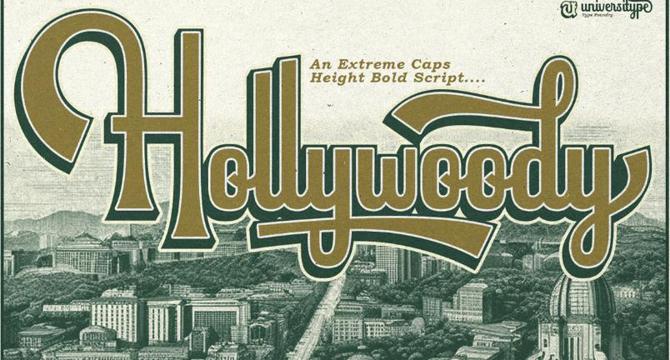
Movie fonts play a crucial role in setting the tone and atmosphere of films by invoking specific emotions and associations in viewers.
Font choices in movies are deeply rooted in psychological perceptions, with serif fonts symbolizing tradition, sans-serif fonts representing modernity, and distressing fonts signaling danger.
Various movie fonts like Cinema Sunday, Cinematic Logo Luxury, and Film Display Font cater to different design needs, from elegant branding to dramatic movie titles.
Fonts like Goride Sans and Bold Sans Serif Film Font are designed for digital media, ensuring clear readability across different platforms.
Adventure Display Font is ideal for outdoor-themed projects, while Cinematic Luxury Font, Extreme Caps Height Script, and Gaming Font Style cater to luxury, nostalgia, and gaming design needs, respectively.
Different fonts like Movie Sans Font, Shadow Noir, and Bhentay Typeface offer simplicity, sophistication, and a touch of mystery suitable for various design applications.
Fonts such as Death Star, Slab Serif Western, and Movie Display Font bring unique styles for retro, bold, and dramatic design projects, including film titles and posters.
Modern Serif Film Fonts like Megatron and Casthena offer a sleek, modern aesthetic for dramatic movie titles and credit sequences, while Mikale provides a sense of cinematic luxury and refinement.
Casthalia, a modern display film font, combines drama and professionalism, making it perfect for film branding and promotional materials.
Each font mentioned adds a distinct visual appeal and character to design projects, showcasing the intricate artistry of typography in cinema.